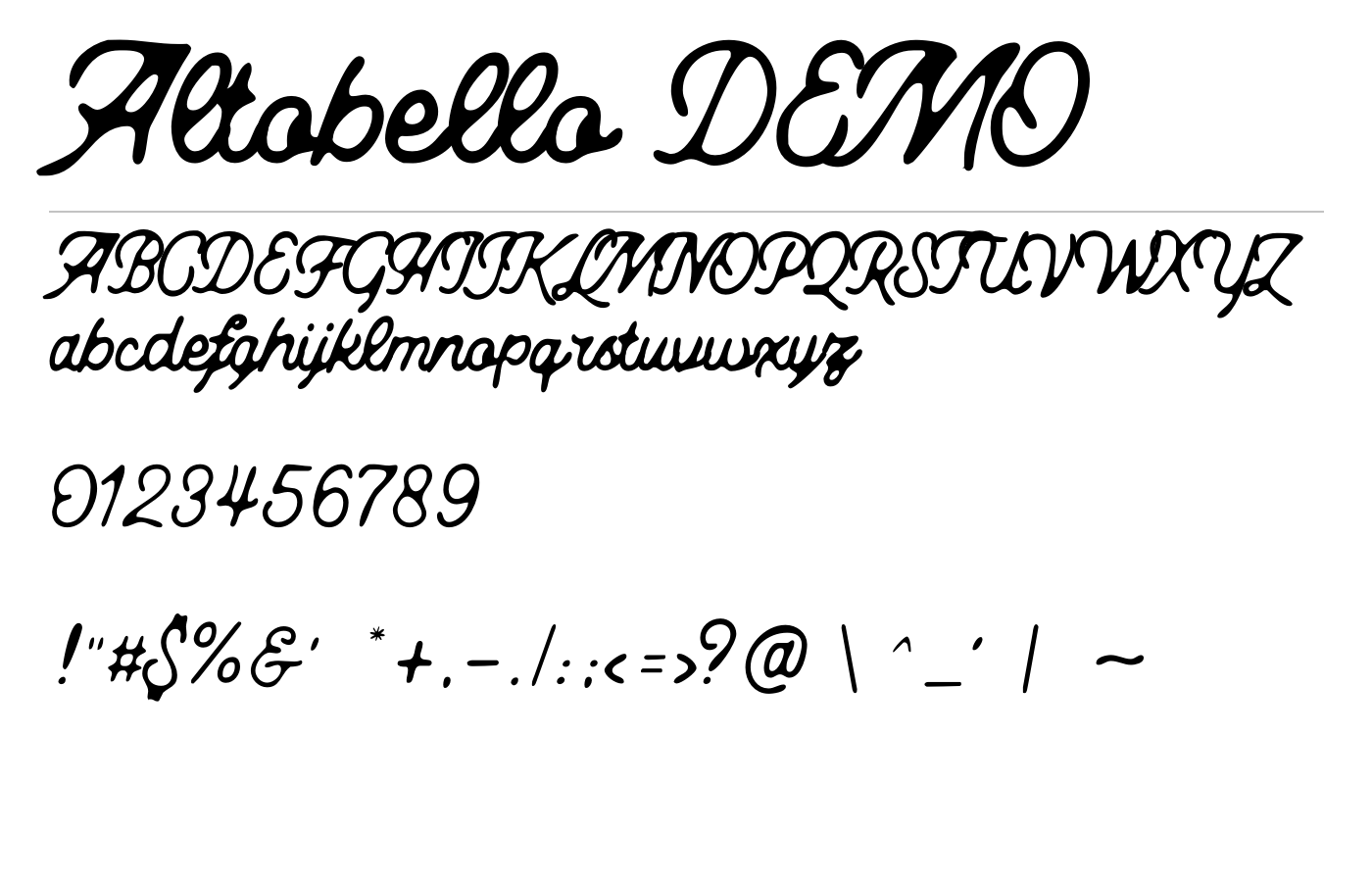
Altobello DEMO is a lively script font with a classic cursive style that features medium weight and a slightly condensed width, giving it a charming, vintage feel. Its smooth, rounded strokes and connected letterforms create an elegant, playful personality, ideal for branding, invitations, or stylish headlines where a personal, hand-crafted look is desired. This font works well for creative projects that seek a warm, approachable vibe with a touch of sophistication.
Altobello DEMO Font
About Altobello DEMO Font
| Font family | Altobello DEMO Font |
| Designer | Abdurrahman Hanif |